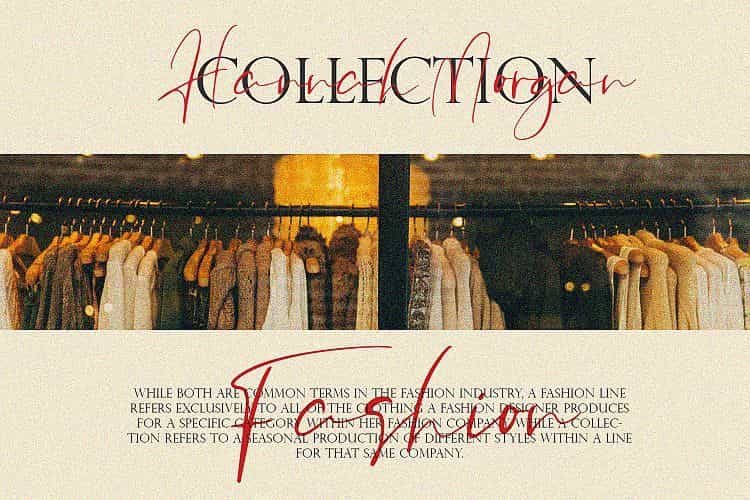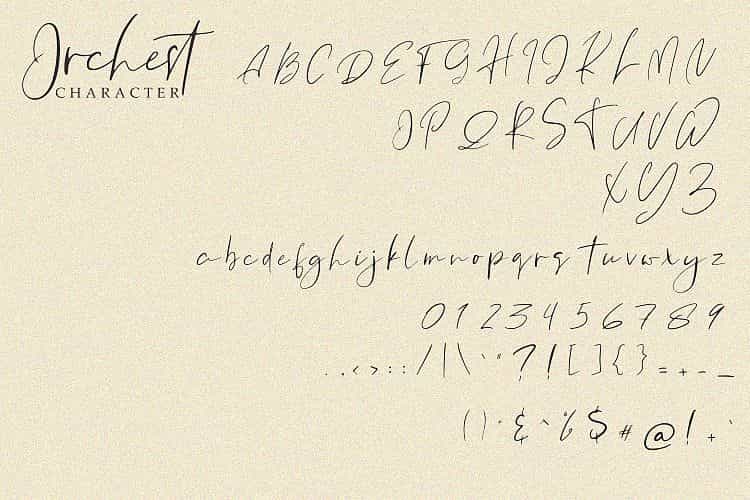
Discover Orchest Script Font, part of the Calligraphy Handwritten collection—a versatile and unique font perfect for adding a personal touch to your projects. Download it for free and enjoy crafting designs with style, from invitations to social media posts. This font is available exclusively for personal use, giving you the freedom to create without limits. Unlock your creativity with Orchest Script Font today!
Introducing Orchest Font. This is created and posted by Arendxstudio. Orchest Script is one of the Luxury Calligraphy that has casual and elegant style which is suitable for Branding Design and will look very stunning in your Wedding Invitation, Business Cards and especially suitable for Brand Name Logotype.